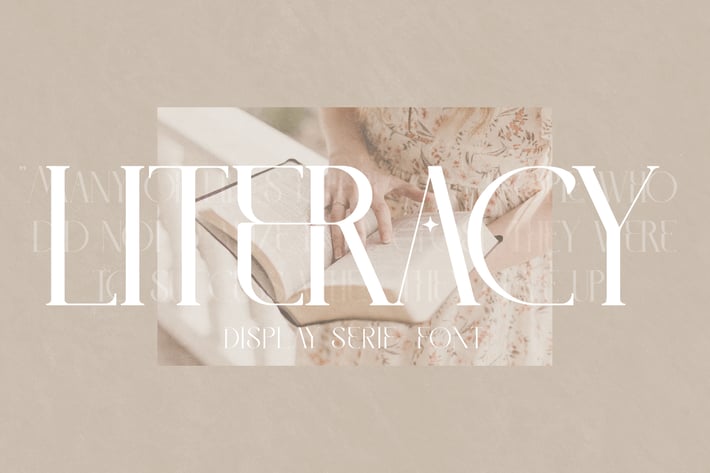
Literacy Display Serif Font
Literacy is an elegant and refined display serif font, exuding a sense of timeless sophistication. Its sleek lines and balanced proportions make it perfect for high-end branding, editorial designs, and luxury projects that require both readability and visual impact.
Refined display serif with modern elegance
Includes Regular & Italic styles
Clean lines with sophisticated detailing
Multilingual support for global designs
Perfect for luxurious branding and editorial work
Fashion and beauty editorial spreads
Luxury branding and identity
High-end product packaging
Promotional materials for exclusive events
High-impact headlines and posters
Where refinement meets timeless design—this serif is perfect for the most stylish and sophisticated creations.*